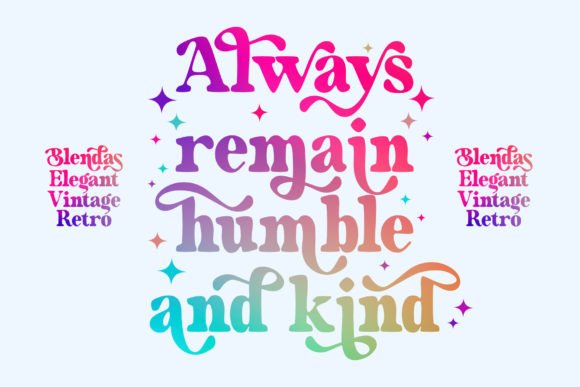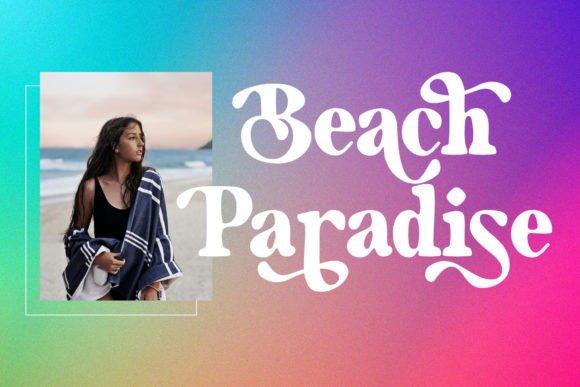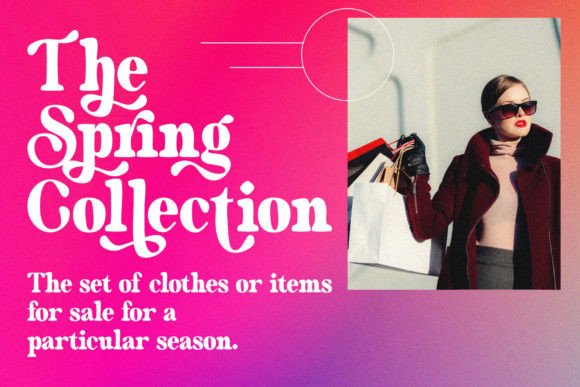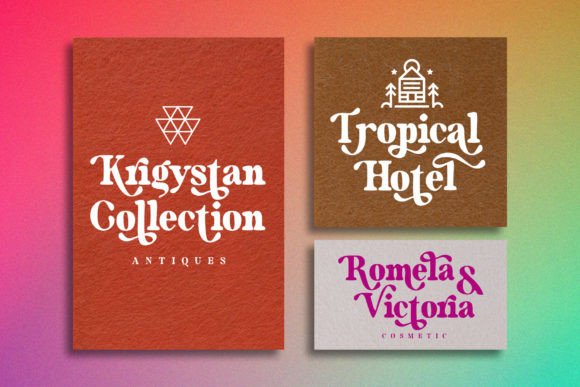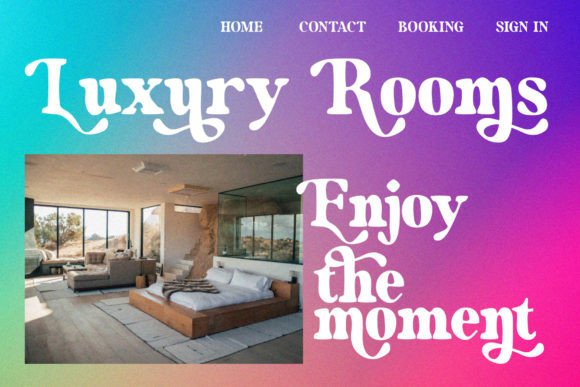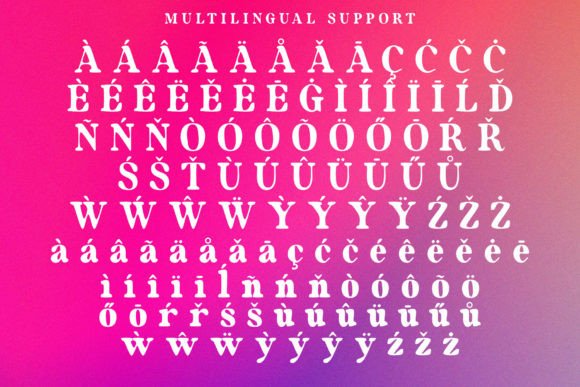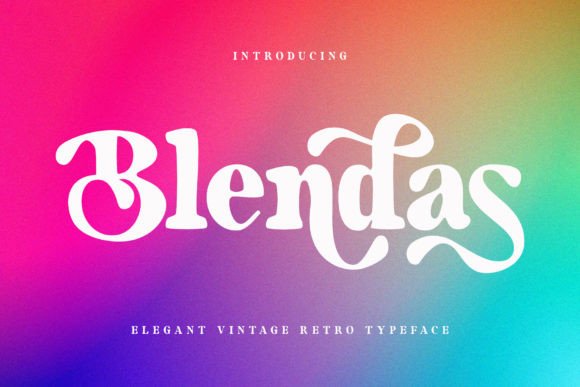
Introducing Blendas Font: Elevate Your Brand with Elegant Vintage Serifs
In the world of typography, fonts play a crucial role in shaping brand identities. For designers and product owners seeking to create unique and captivating designs, Blendas Font is an exceptional choice. This elegant and modern vintage serif font is specifically designed to meet the distinctive branding needs of creative professionals. With its extra ligatures in a unique style, Blendas Font adds a touch of sophistication and vintage charm to any design project.
The Unique Features of Blendas Font
Blendas Font stands out from the crowd with its distinctive characteristics. Its vintage serif design exudes elegance and refinement, making it perfect for brands aiming to convey a sense of luxury and tradition. The font’s modern twist ensures that it remains fresh and relevant, appealing to a wide range of audiences. One of the key features that sets Blendas Font apart is its inclusion of extra ligatures. These special characters add a unique touch to the font, allowing designers to create visually appealing and cohesive brand communications.
Why Choose Blendas Font for Your Branding Needs?
For designers and product owners seeking to elevate their brand’s visual identity, Blendas Font offers numerous benefits. Here are a few reasons why Blendas Font should be at the top of your list:
- Elegant and Modern Design: Blendas Font boasts a sophisticated vintage serif design that is both elegant and modern. This unique blend of styles ensures that your brand stands out from the competition.
- Extra Ligatures for Added Uniqueness: The font’s extra ligatures provide a distinctive touch, allowing you to create brand communications that are truly one-of-a-kind.
- Perfect for Vintage-Inspired Designs: If you’re aiming to create designs with a vintage flair, Blendas Font is an excellent choice. Its classic serifs and modern twist make it ideal for a wide range of design projects.
- Enhance Your Brand’s Visual Identity: With Blendas Font, you can create a cohesive and visually appealing brand identity that resonates with your target audience.
How to Use Blendas Font in Your Design Projects
Blendas Font is versatile and can be used in a variety of design projects, including:
- Logo Design: Create a lasting impression with a unique and elegant logo that incorporates Blendas Font.
- Branding and Packaging: Elevate your brand’s visual identity with Blendas Font, perfect for packaging, business cards, and more.
- Web Design: Add a touch of sophistication to your website with Blendas Font, ideal for headings, titles, and other design elements.
- Print Design: Use Blendas Font in your print design projects, such as brochures, posters, and flyers, to create visually appealing and cohesive materials.
Tips for Getting the Most Out of Blendas Font
To maximize the impact of Blendas Font, consider the following tips:
- Experiment with Ligatures: Take advantage of Blendas Font’s extra ligatures to add a unique touch to your designs.
- Pair with Complementary Fonts: Combine Blendas Font with complementary fonts to create visually appealing and harmonious design elements.
- Play with Font Sizes and Styles: Experiment with different font sizes and styles to create visual hierarchy and emphasize key design elements.
Blendas Font is an exceptional choice for designers and product owners seeking to elevate their brand’s visual identity with a unique and elegant vintage serif font. With its extra ligatures and modern twist, Blendas Font adds a touch of sophistication and vintage charm to any design project. By incorporating Blendas Font into your design workflow, you can create captivating and cohesive brand communications that resonate with your target audience.